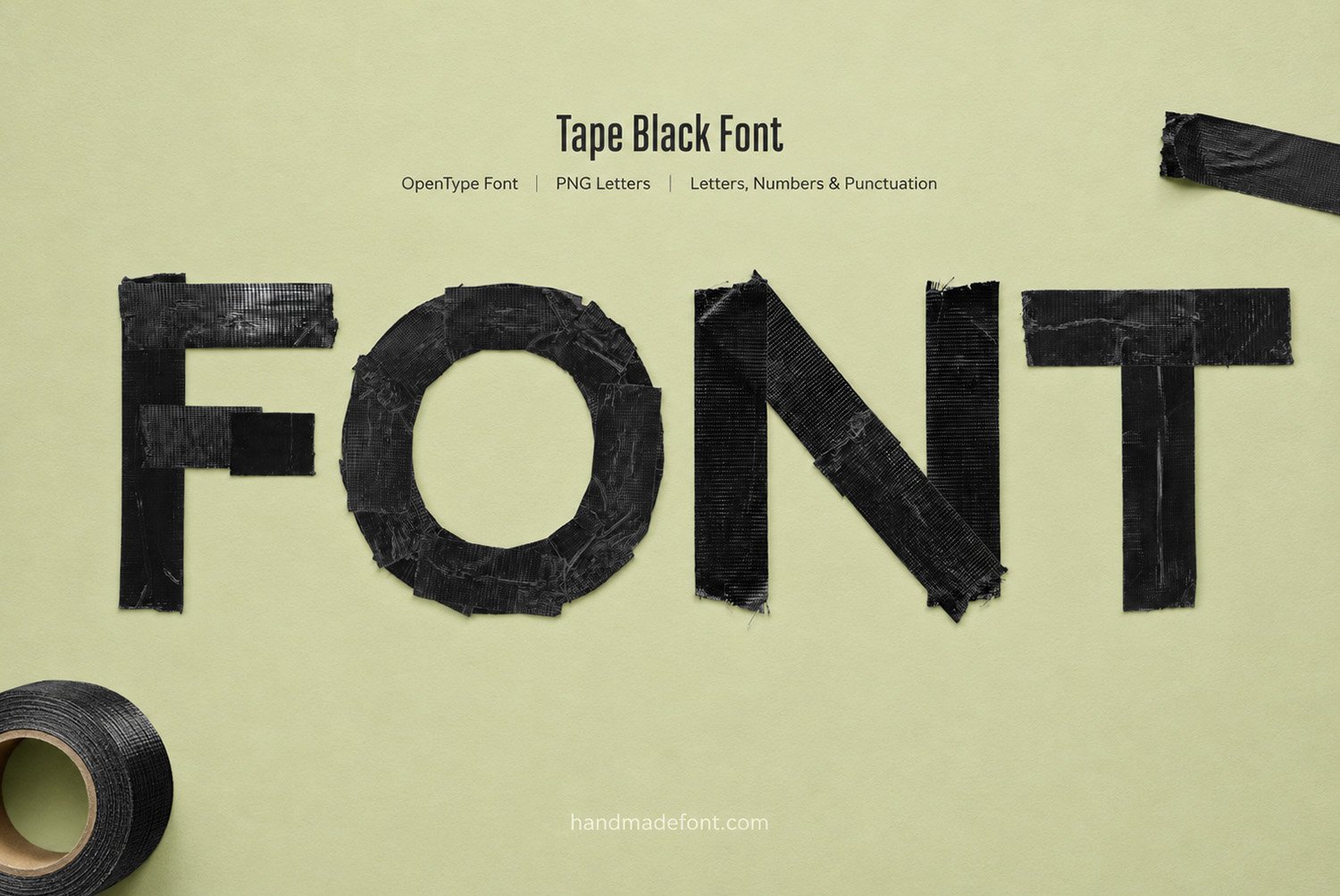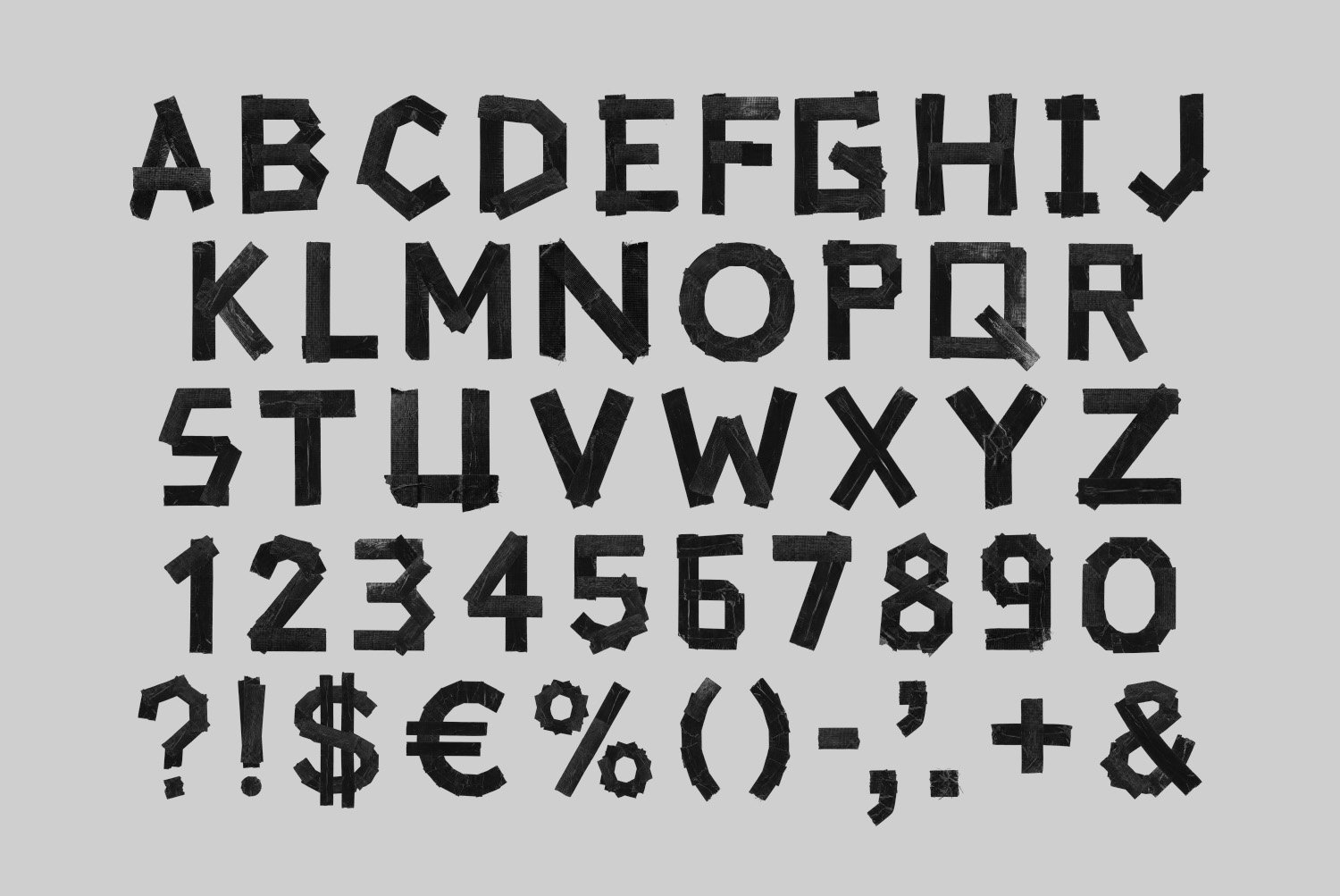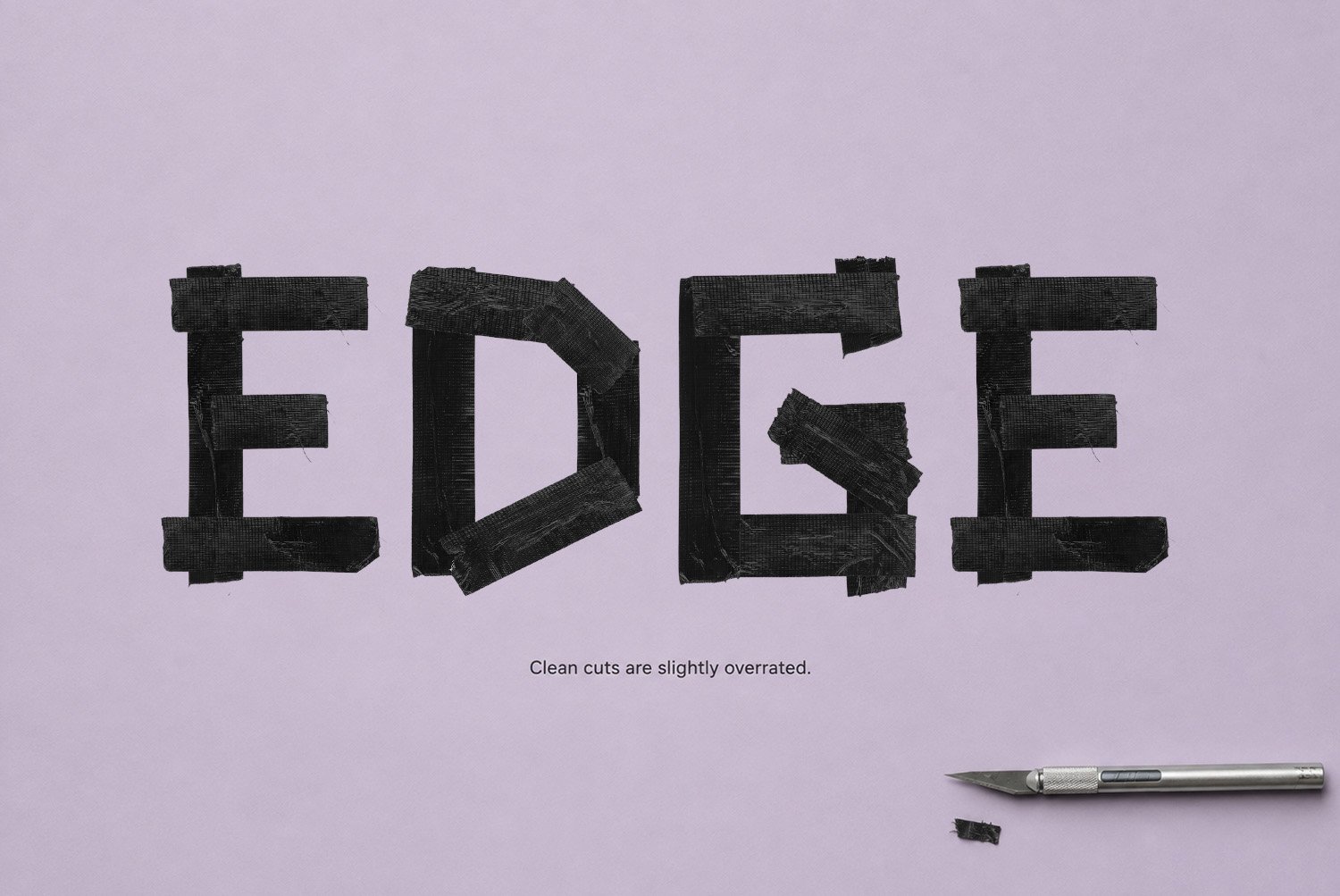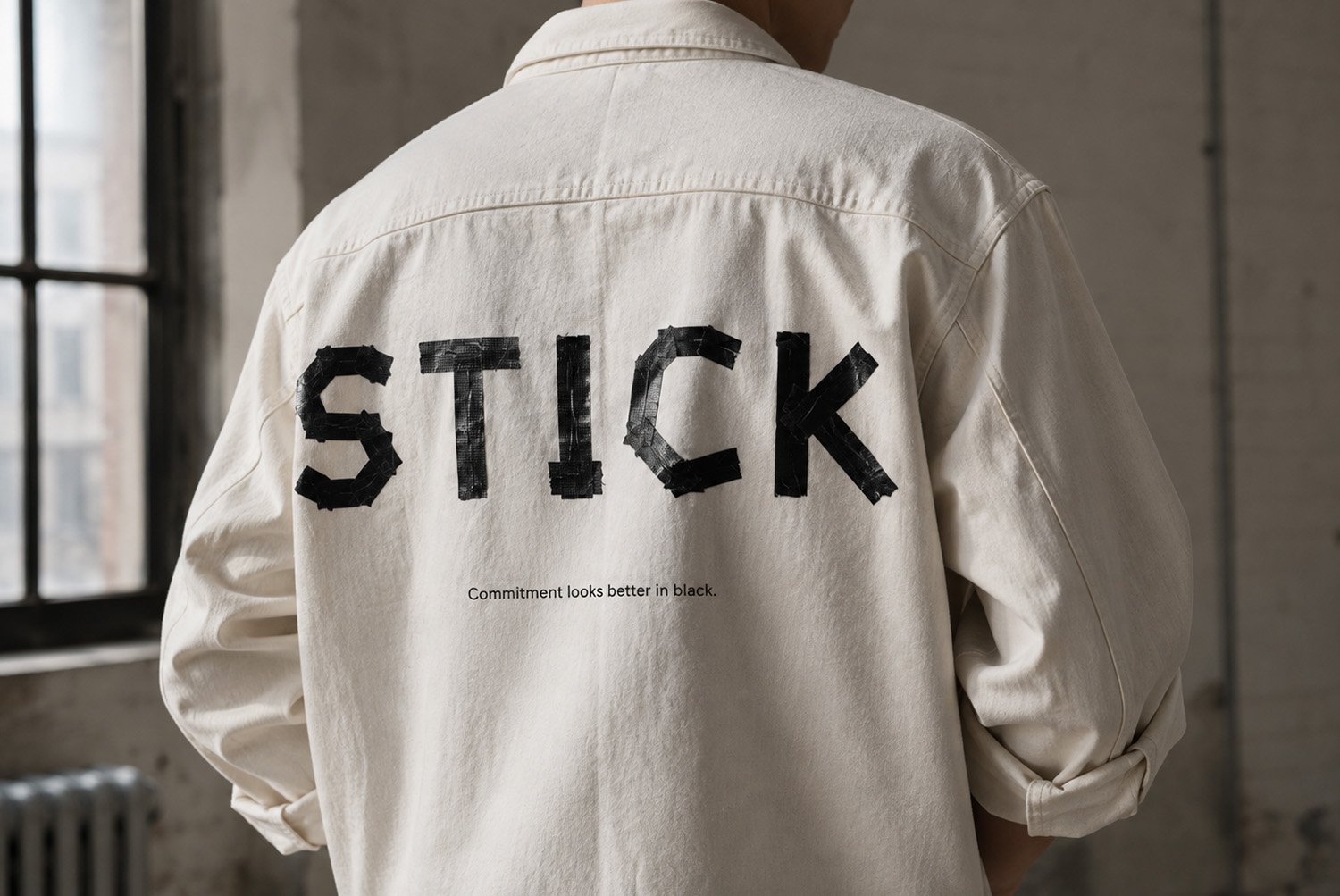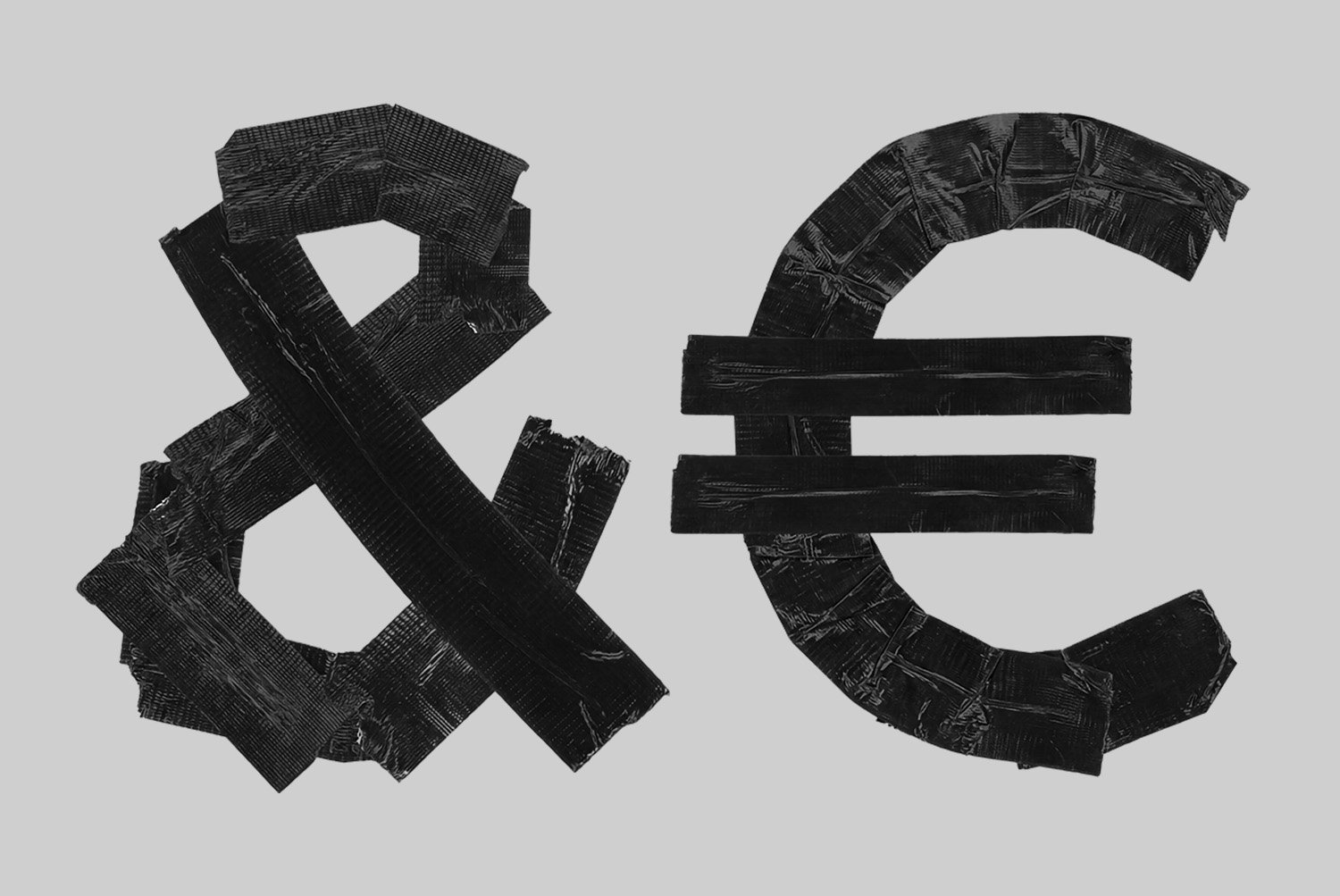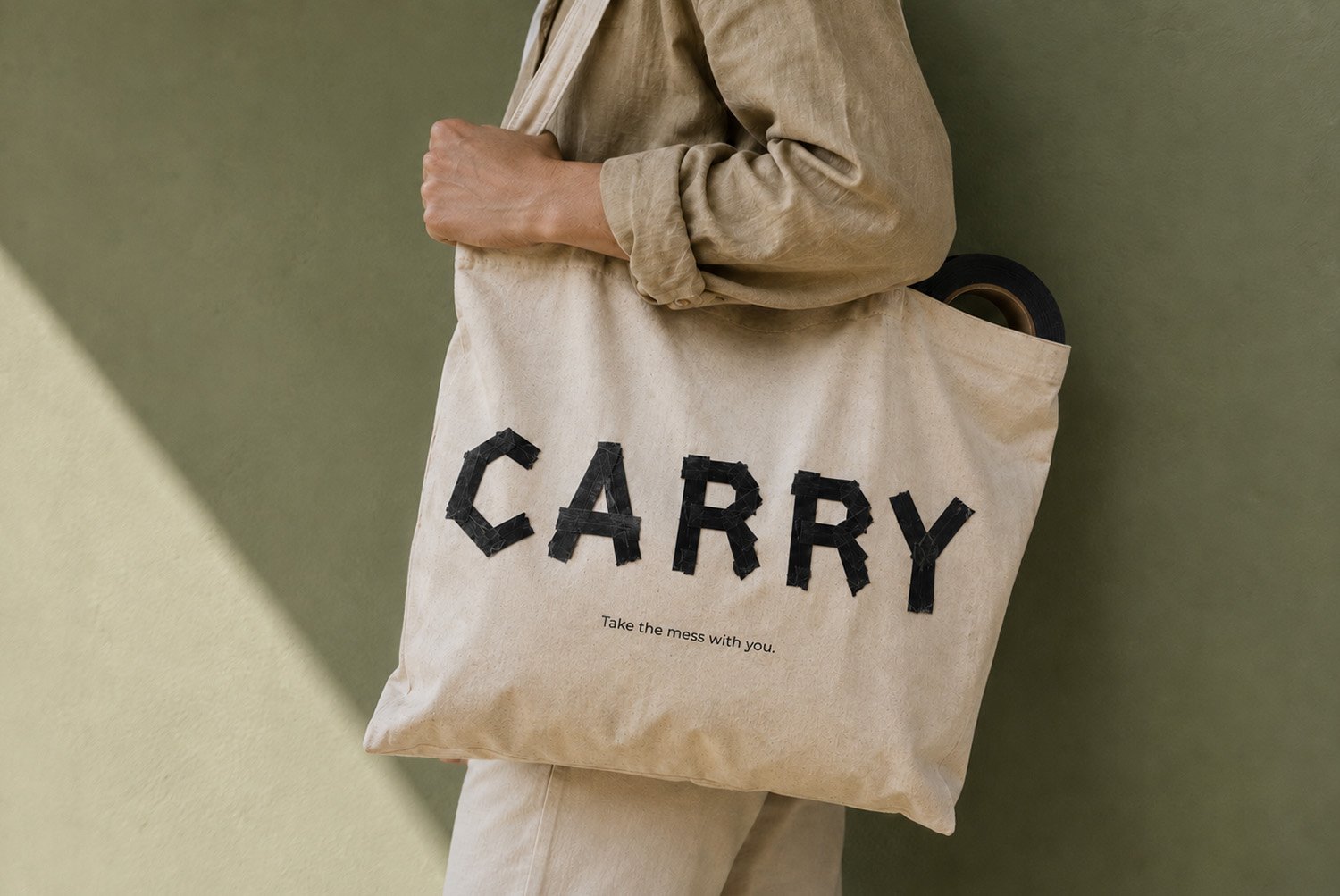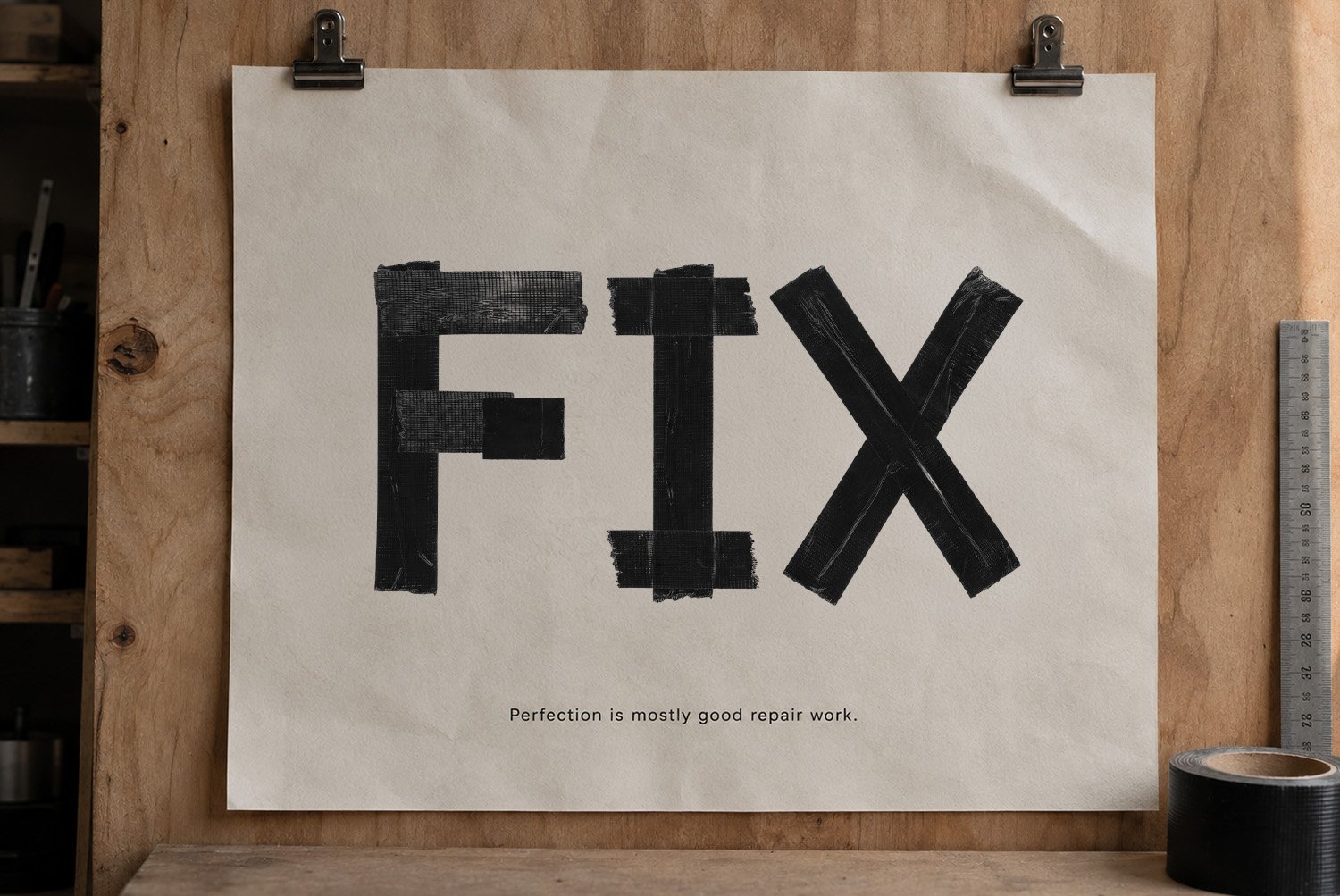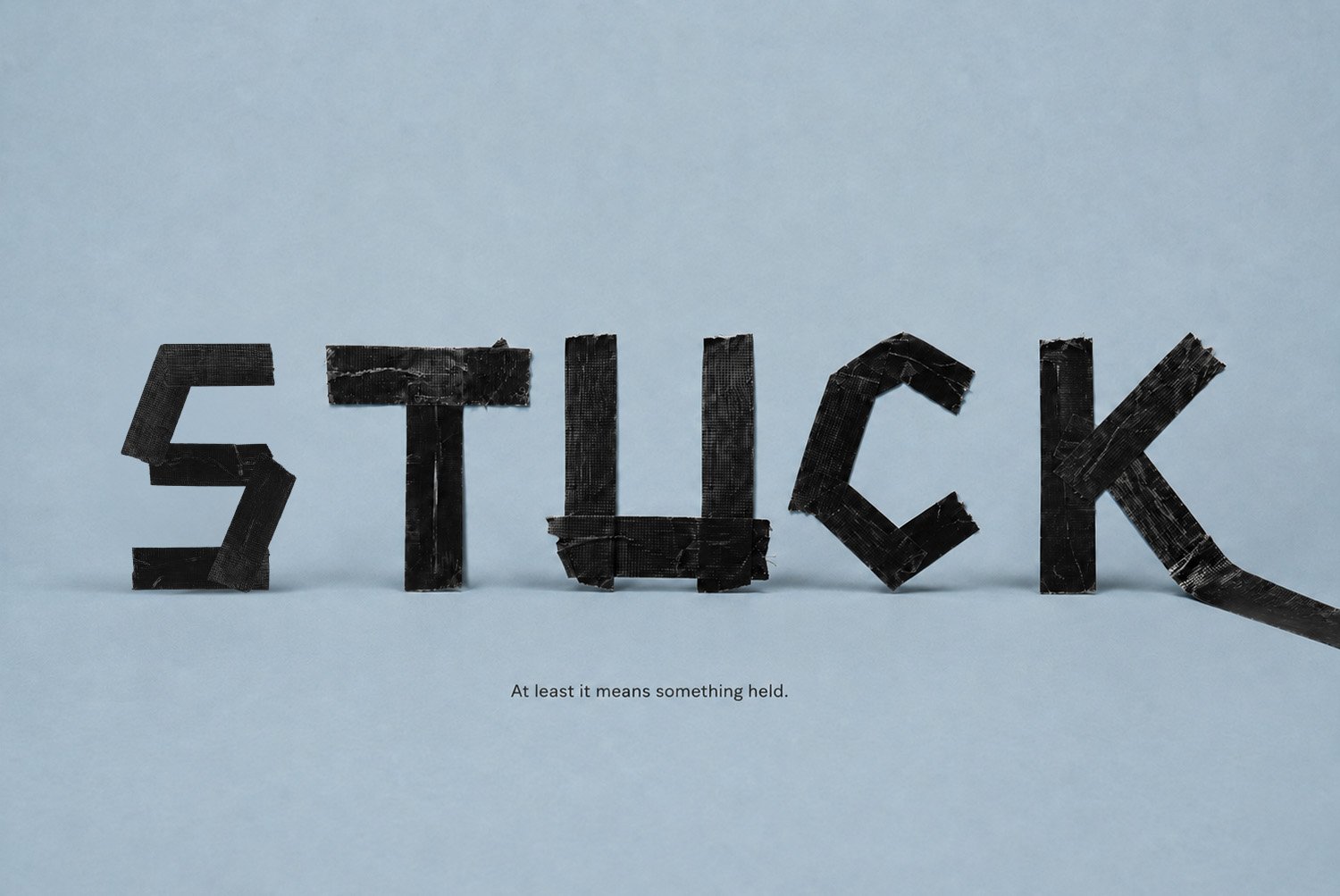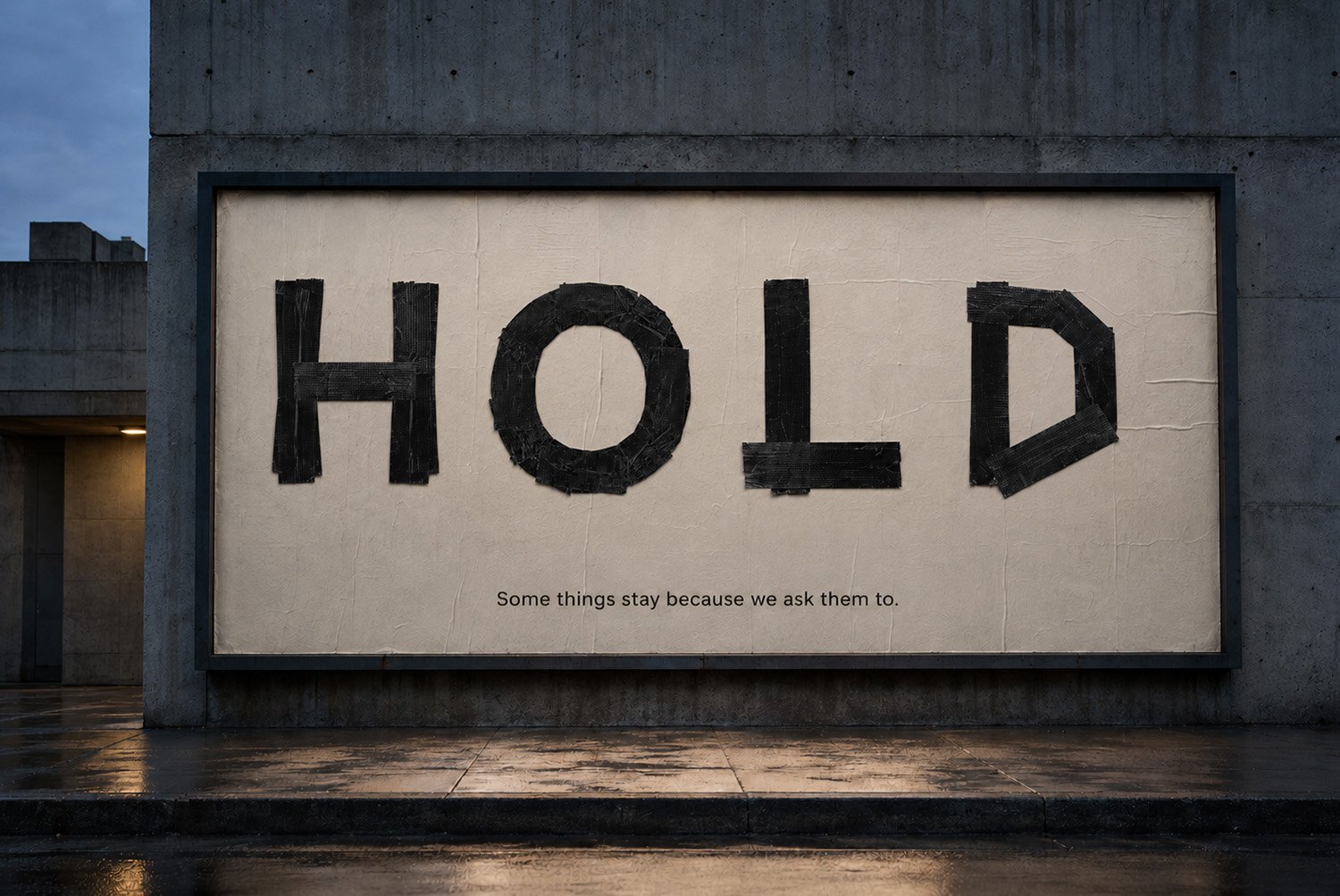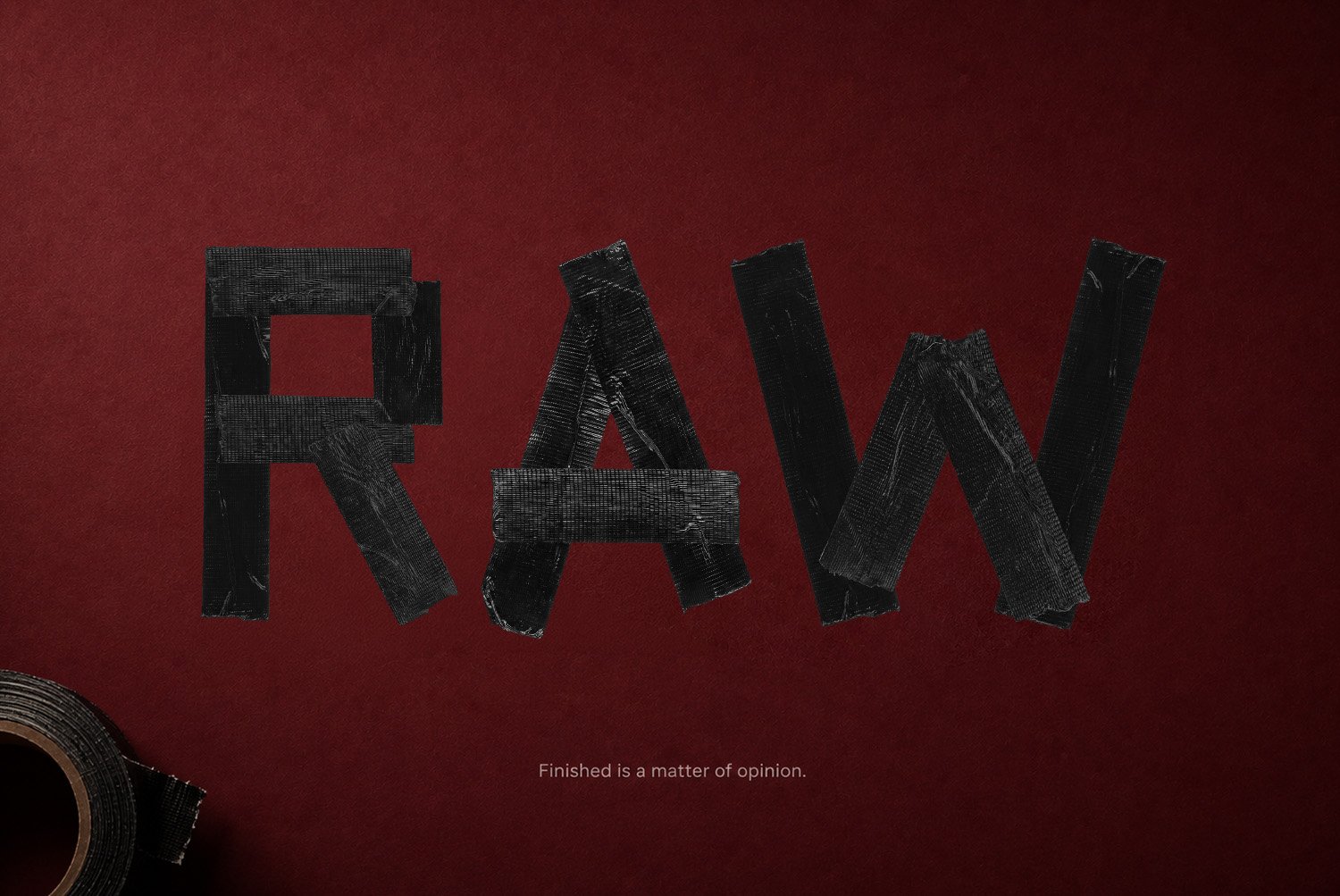
Tape Black Font
Tape Black Font captures the raw character of black adhesive tape in a bold, handmade display typeface. Every letter is built from layered, imperfect strips, creating rugged edges, glossy texture, and an authentic tactile feel. Its strong graphic presence works beautifully for posters, album covers, streetwear, labels, social content, packaging, and rebellious branding. The OTF font includes uppercase letters, numbers, and punctuation, giving you everything needed for expressive headlines. Individual PNG characters are also included on transparent backgrounds, ready for quick collages, custom compositions, product mockups, and striking visual stories.